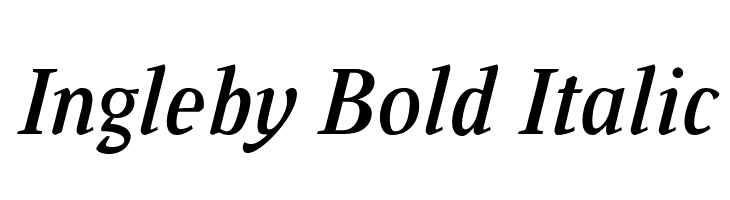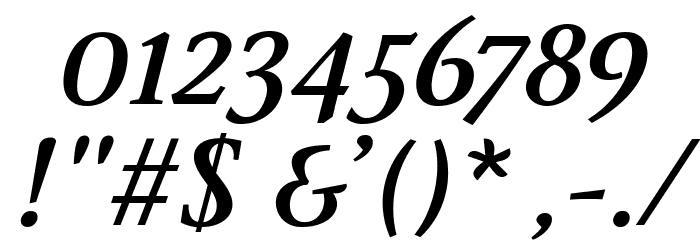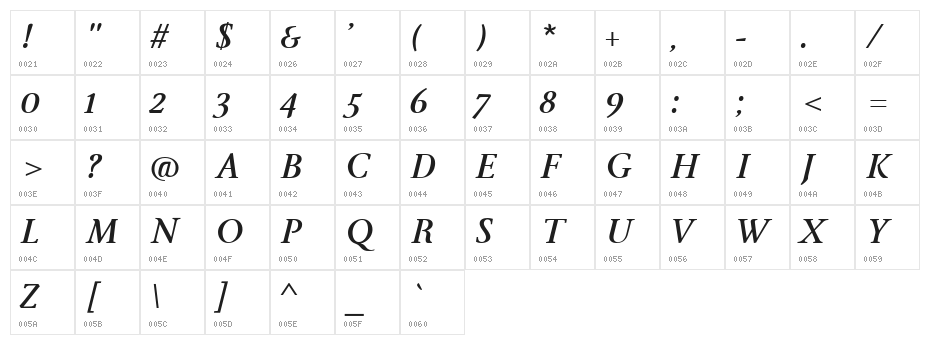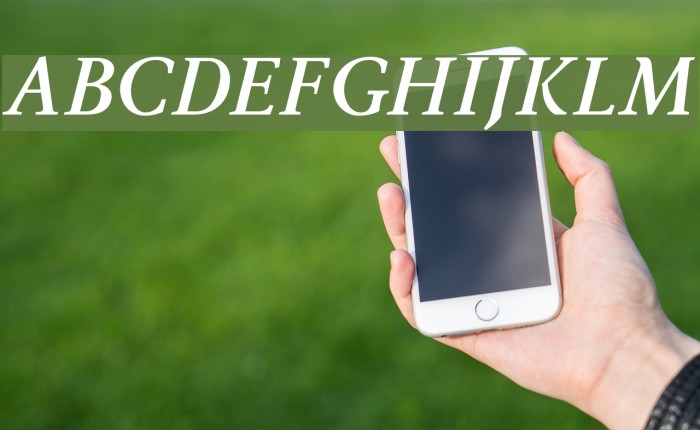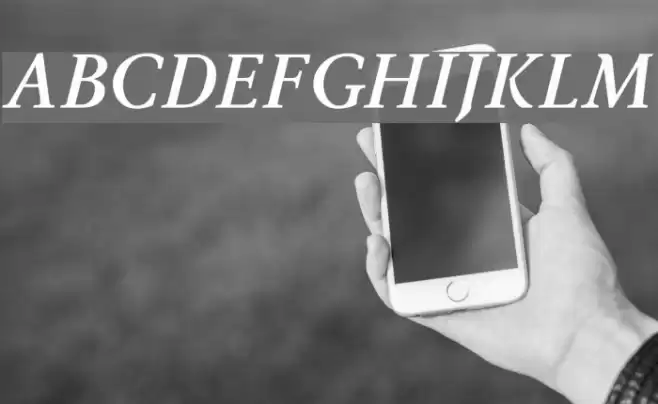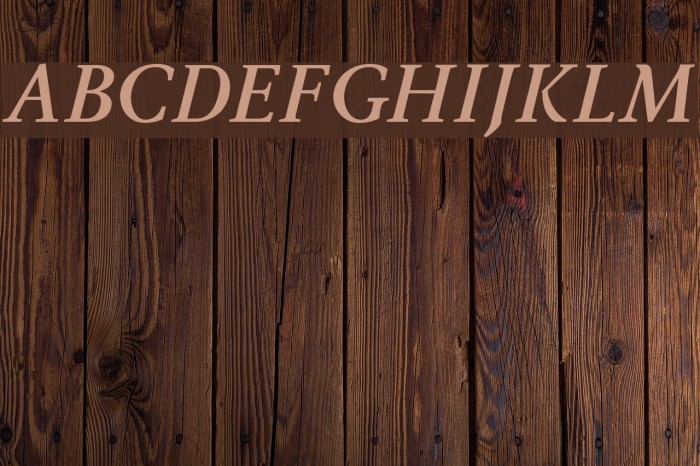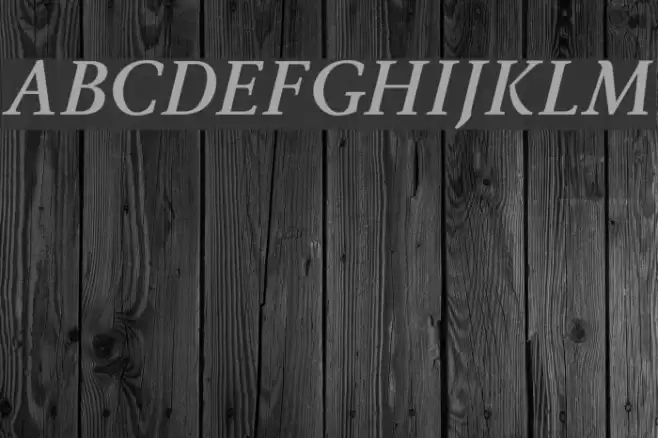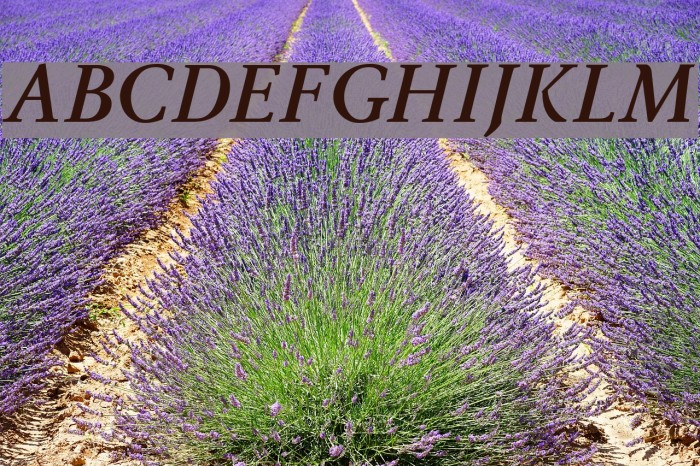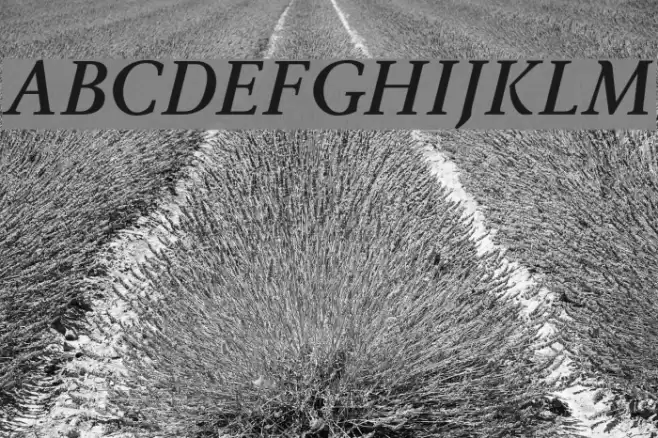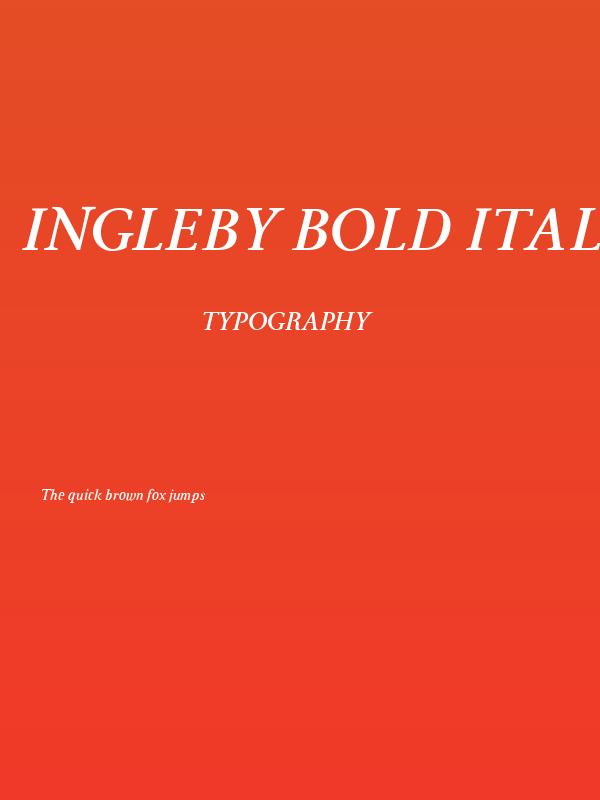
Ingleby Bold Italic Font
Ingleby Bold Italic Description
This font exhibits a classic serif style with a bold and italicized presentation, offering a sophisticated and elegant appearance. The characters are well-defined with a slight slant, enhancing the italic nature. The serifs are pronounced, adding a traditional touch to the overall design. The uppercase letters are tall and commanding, while the lowercase letters maintain a consistent flow, contributing to the font's readability. The numerals are clear and distinct, matching the style of the alphabetic characters. Special characters are included, maintaining the same stylistic features, ensuring versatility in various design applications.